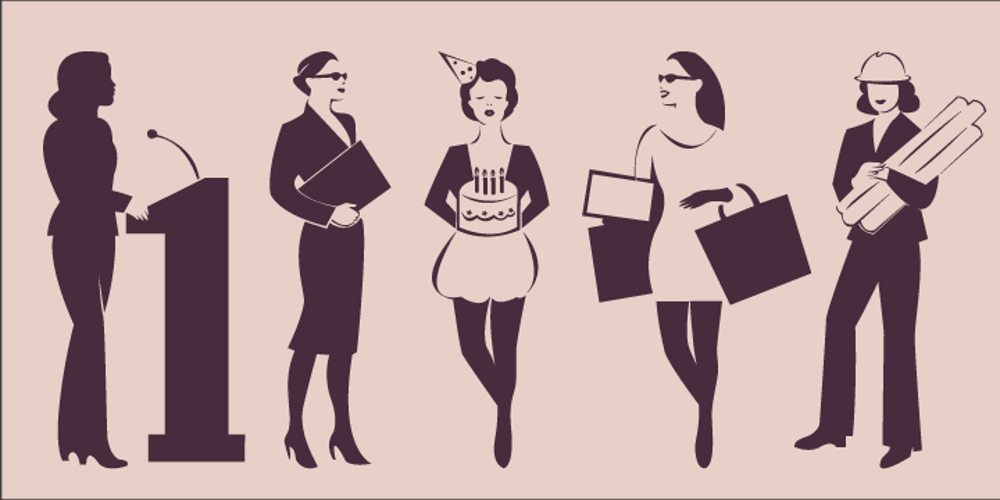
Vibrant Women
Vibrant Women font
Vibrant Women Font Family was designed by Rae Kaiser, Nancy Vala and published by Outside the Line. Vibrant Women contains 1 styles and family package options. Vibrant Women, 31 illustrations of women at the office, playing tennis, drinking coffee, shopping, skiing, lifting weights and more. Lots of movement, grace and charm for your ads, newsletters, scrapbooking or graphic design.